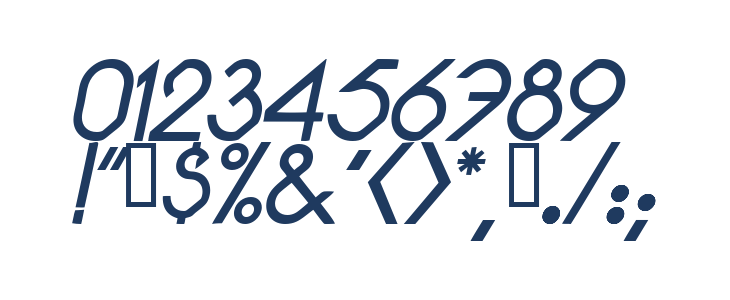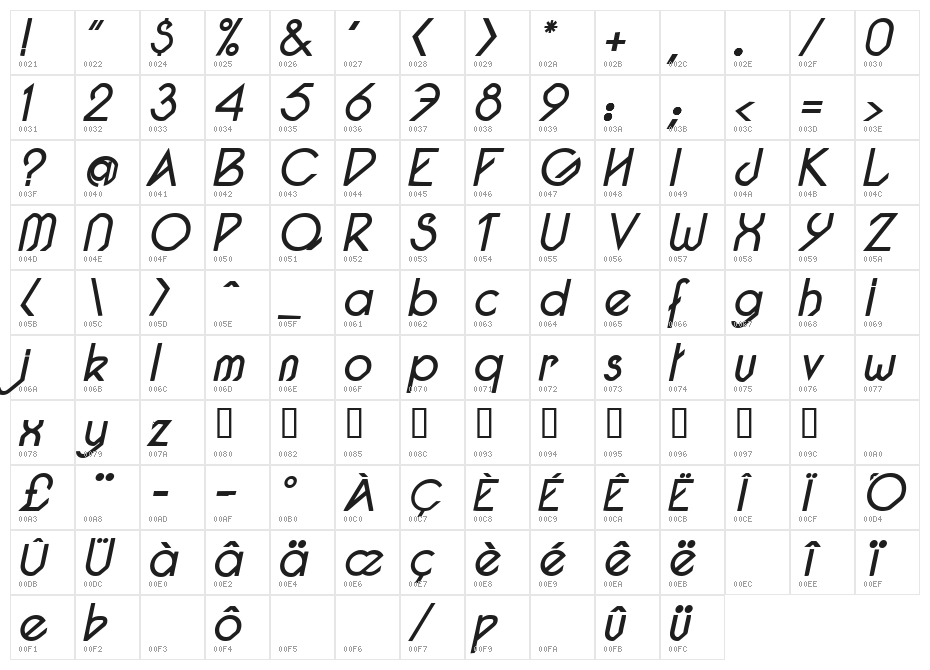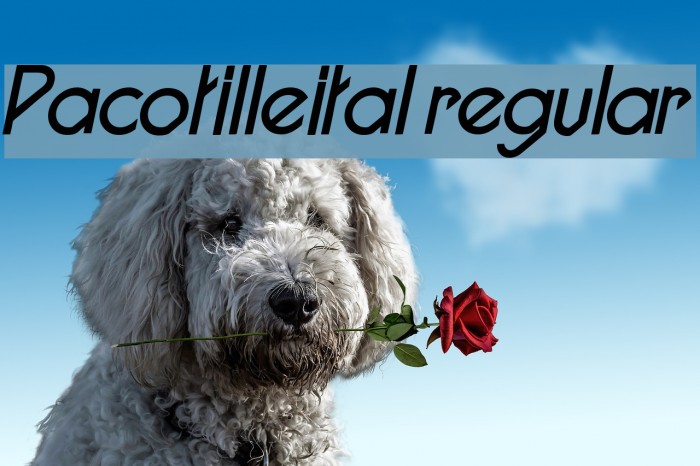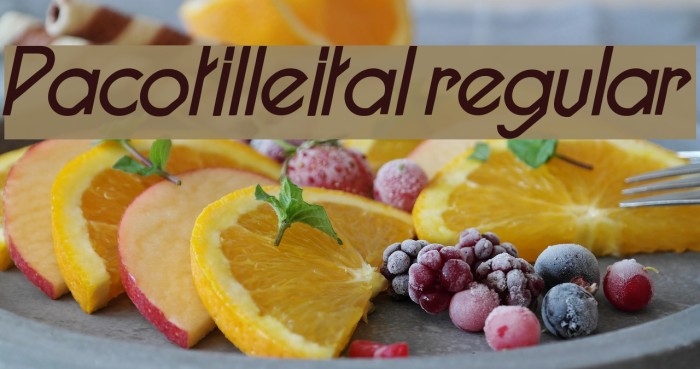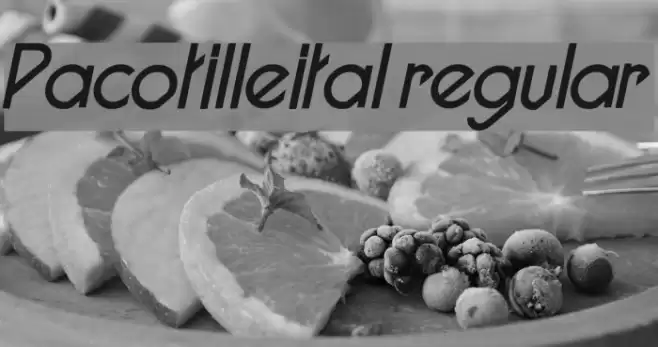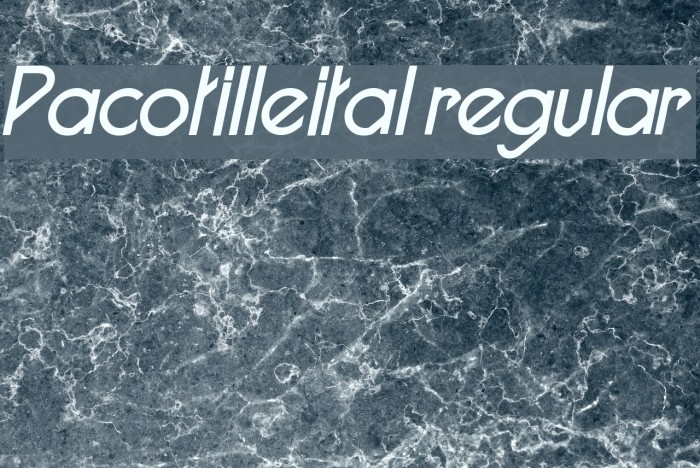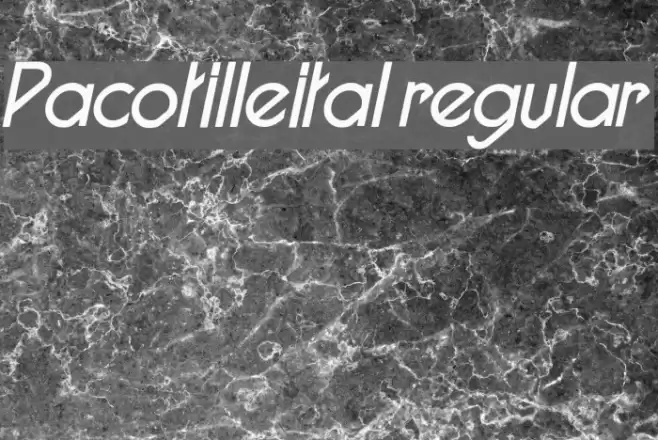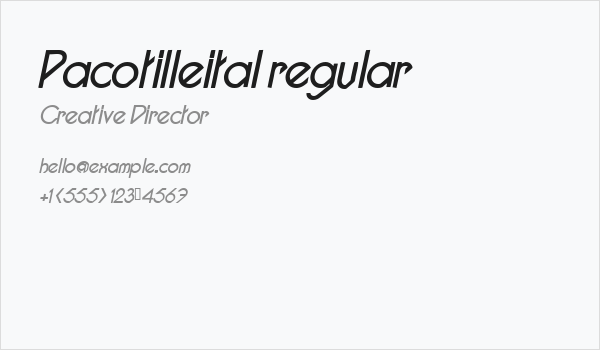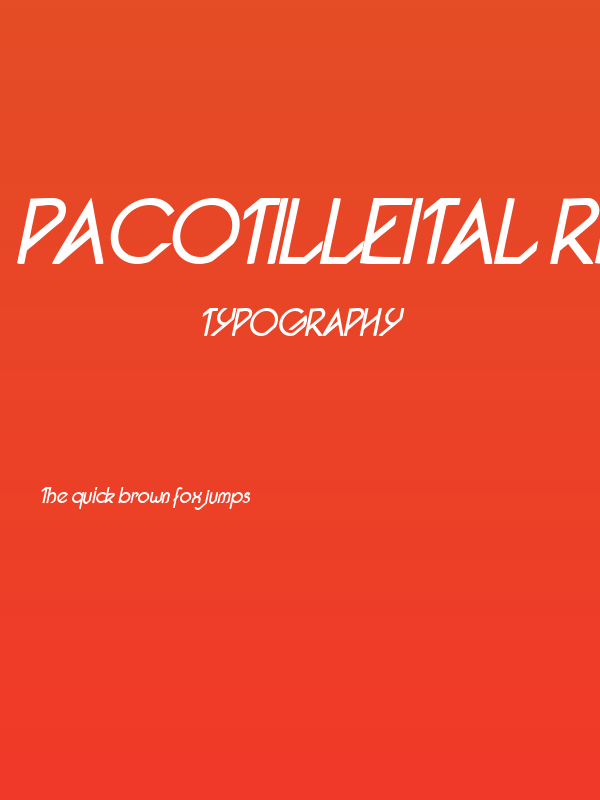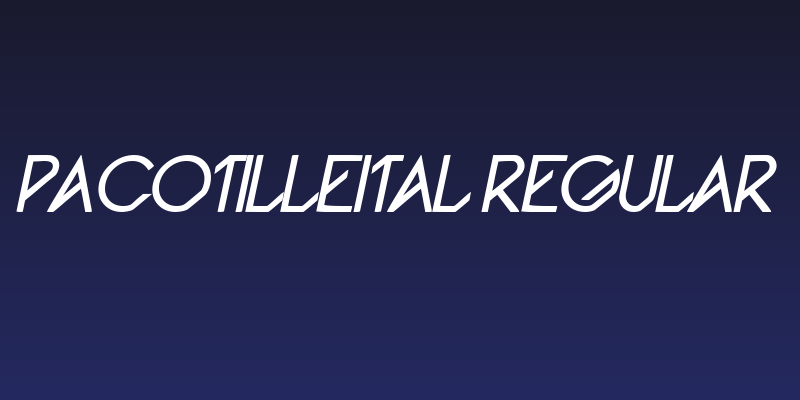
Pacotilleital regular Font
Pacotilleital regular Description
This font exhibits a dynamic and modern style with a distinct italic slant, giving it a sense of movement and energy. The characters are crafted with sharp angles and clean lines, creating a futuristic and sleek appearance. The uppercase letters are bold and prominent, while the lowercase letters maintain a consistent flow, enhancing readability. The numerals are well-proportioned, and the special characters are designed to complement the overall aesthetic. This font's unique style makes it suitable for projects that require a contemporary and edgy look.